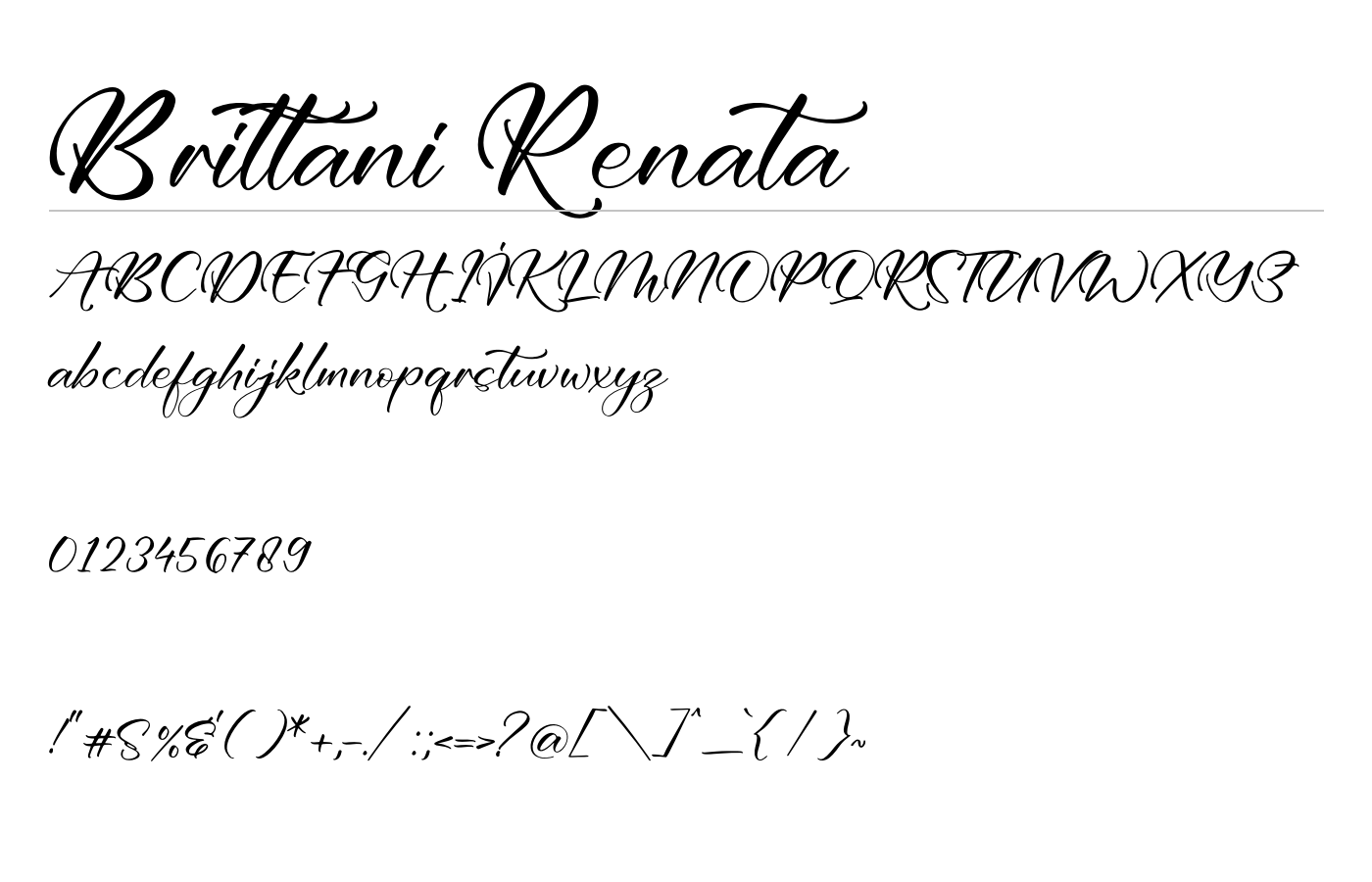
Brittani Renata is an elegant script font characterized by flowing, cursive letterforms with graceful swashes and smooth strokes. Its delicate, high-contrast lines and stylish flourishes make it ideal for sophisticated branding, invitations, and luxury packaging where a refined, feminine touch is desired. This font excels in headline and display use, adding a charming and romantic feel to any design.
Brittani Renata Font
About Brittani Renata Font
| Font family | Brittani Renata Font |
| Designer | Nanang Jamaludin |